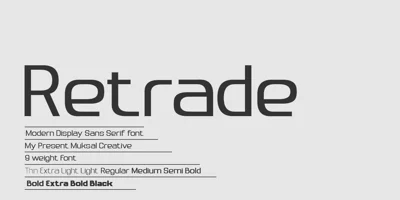
Retrade Font
Retrade Font is perfect for financial and commercial applications including trading platform interfaces, business analytics dashboards, financial report presentations, stock market publications, investment firm branding, economic conference materials, banking documentation, and corporate financial communications. This professional typeface brings market confidence and commercial authority to projects requiring trustworthy financial messaging and professional credibility.
What makes Retrade Font exciting is its perfect balance of financial precision and market dynamism that captures the energy of modern trading environments. The font features clean, systematic letterforms with subtle angular elements that convey both stability and movement, reflecting the dual nature of financial markets. Its authoritative character design incorporates precise spacing and consistent proportions that ensure clarity in data-heavy environments while projecting confidence and professional expertise.
The Retrade Font family includes comprehensive weight options optimized for financial applications, from light weights for detailed data presentations to bold variants for impactful headers and call-to-action elements. The family encompasses tabular figures, currency symbols, and mathematical operators essential for financial documentation. Extended character sets and technical symbols support complex financial reporting and international market applications.
Financial professionals and trading organizations consistently choose Retrade Font for projects requiring authoritative typography and market credibility. Whether developing trading platforms, creating investment presentations, or designing financial service branding, this font provides exceptional clarity and professional presence. Its unique combination of commercial authority and modern functionality makes it an indispensable resource for finance professionals who demand typography that communicates trust, expertise, and market leadership in competitive financial environments where precision and credibility are paramount.